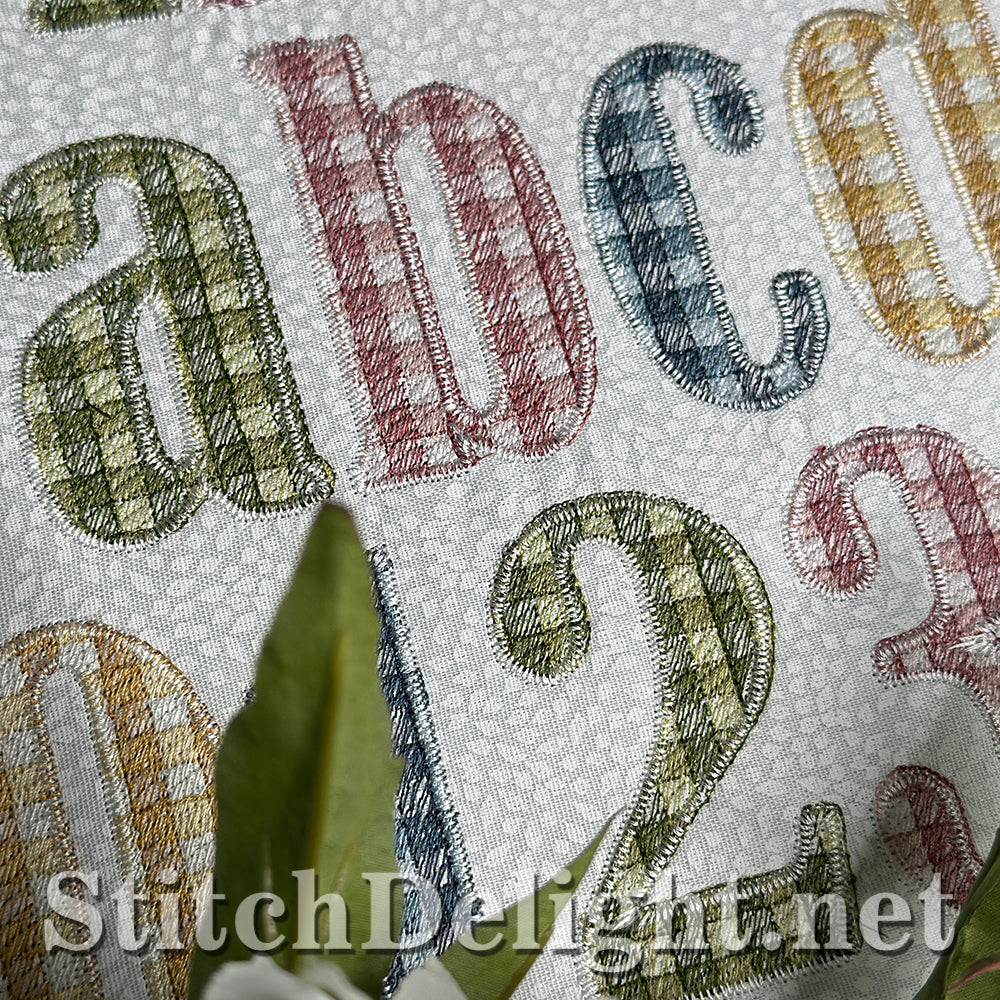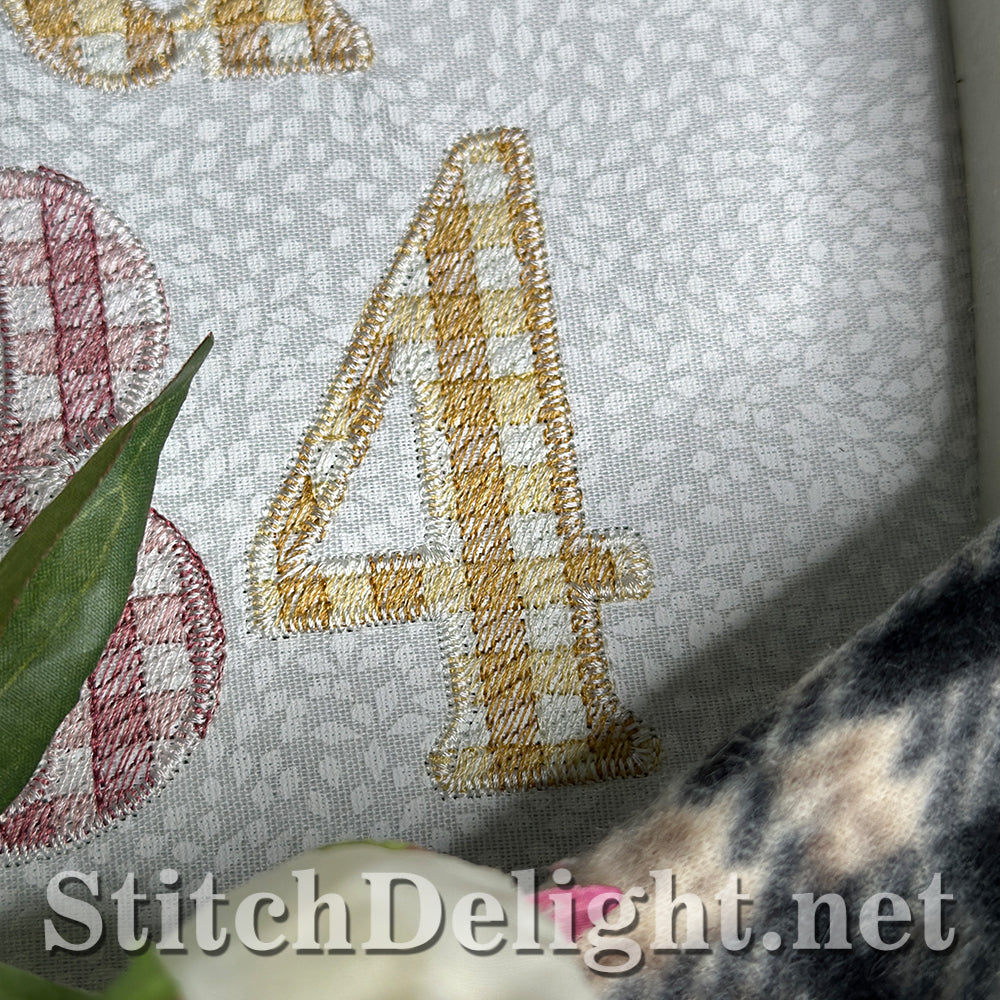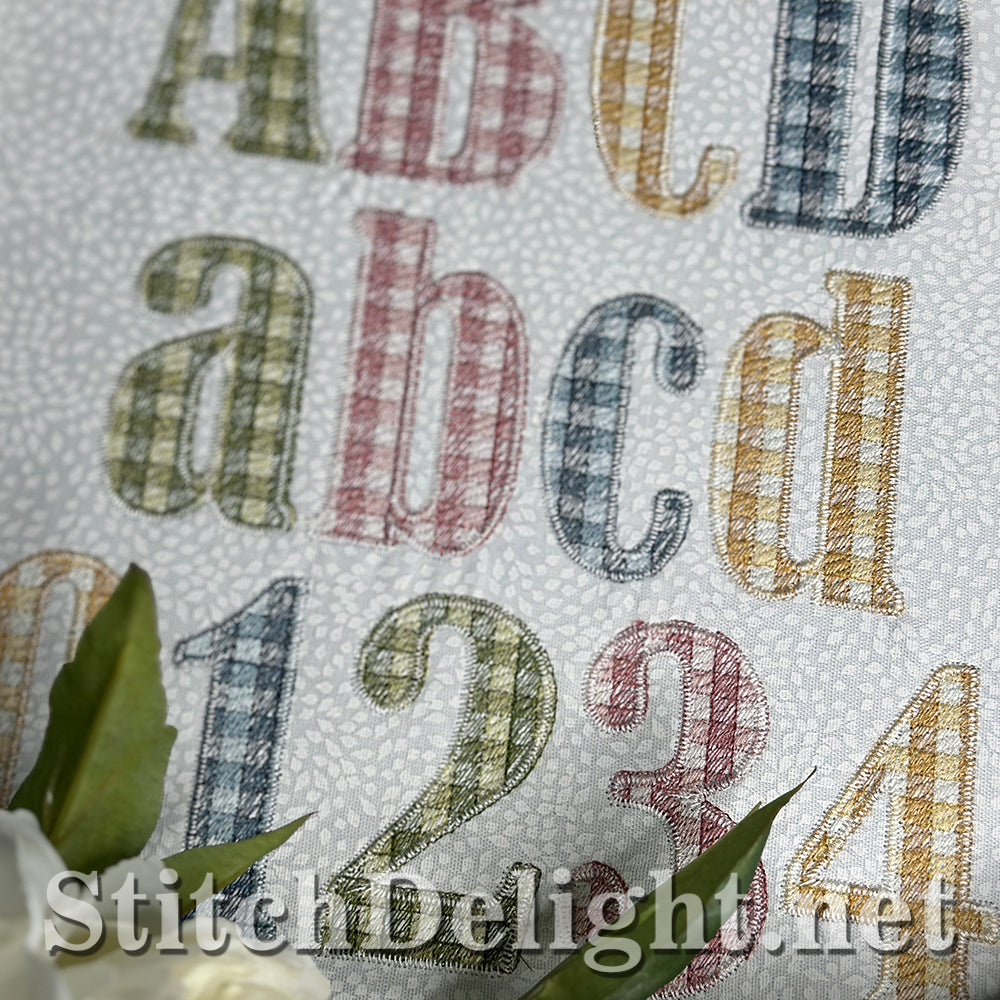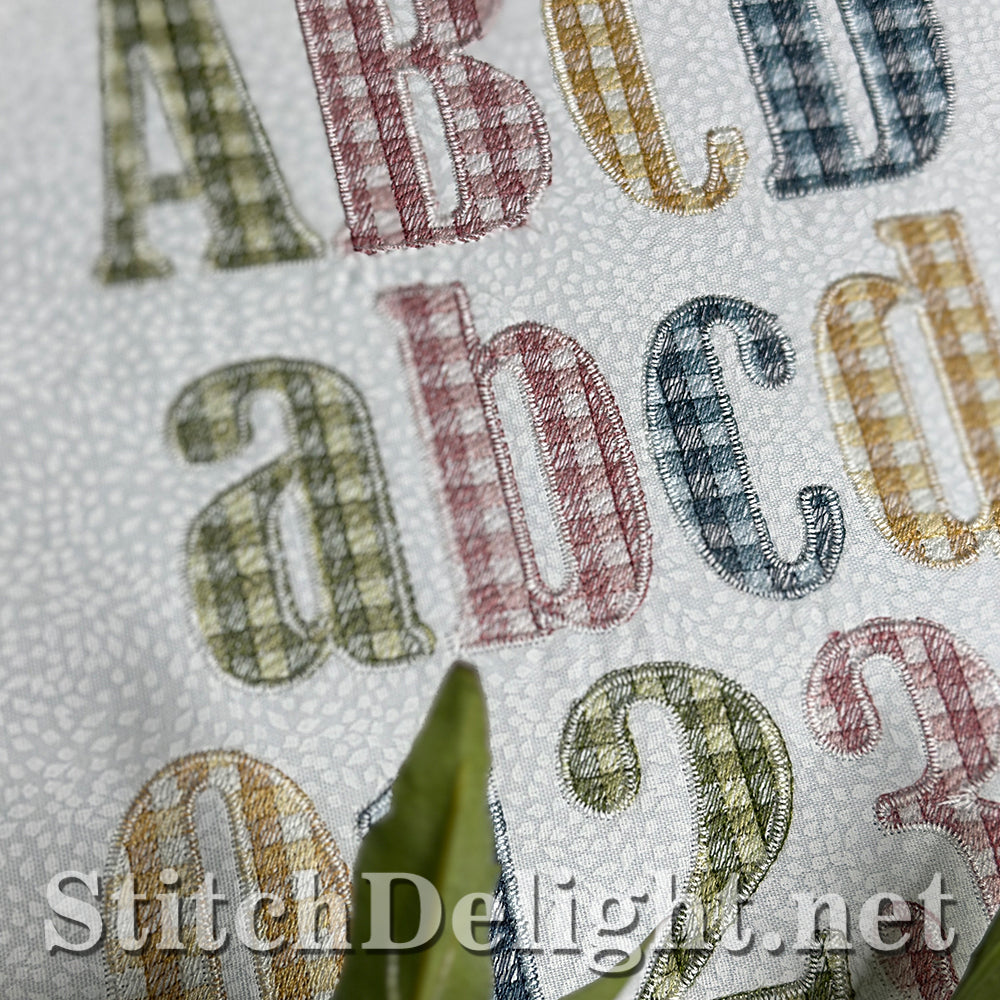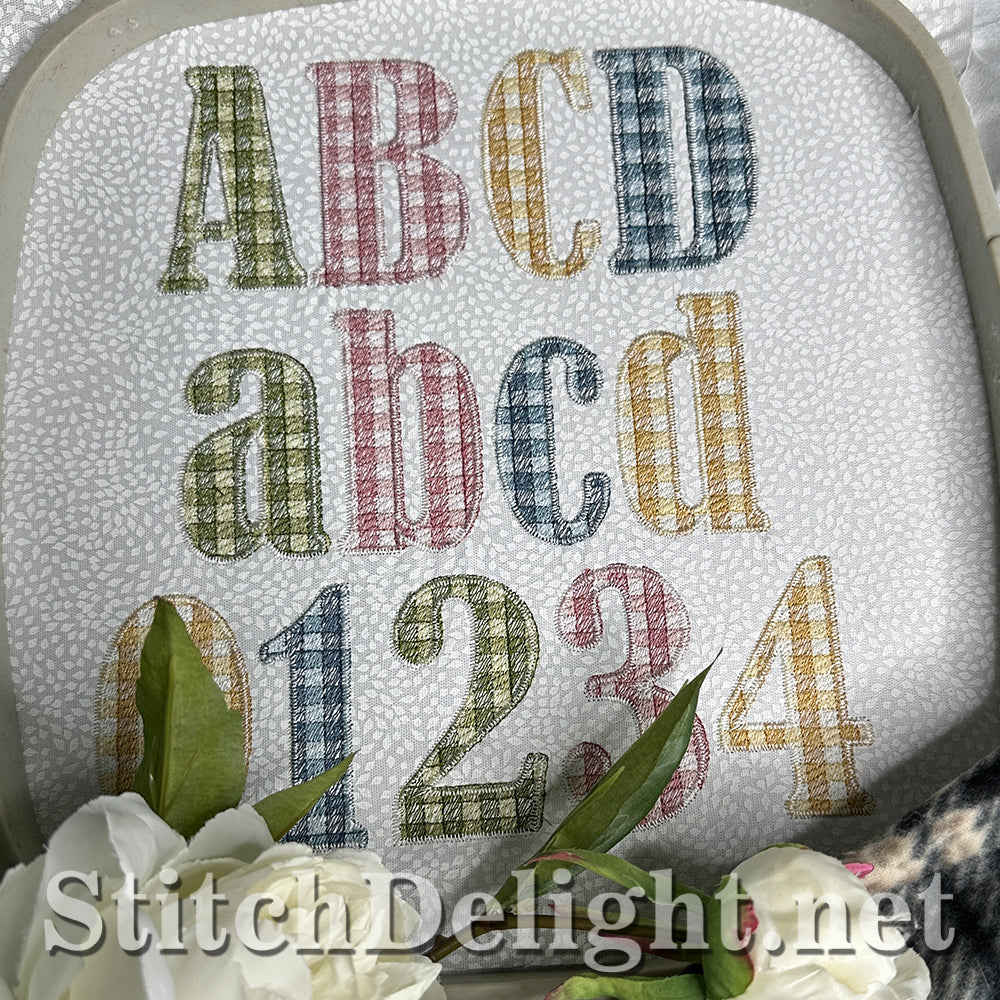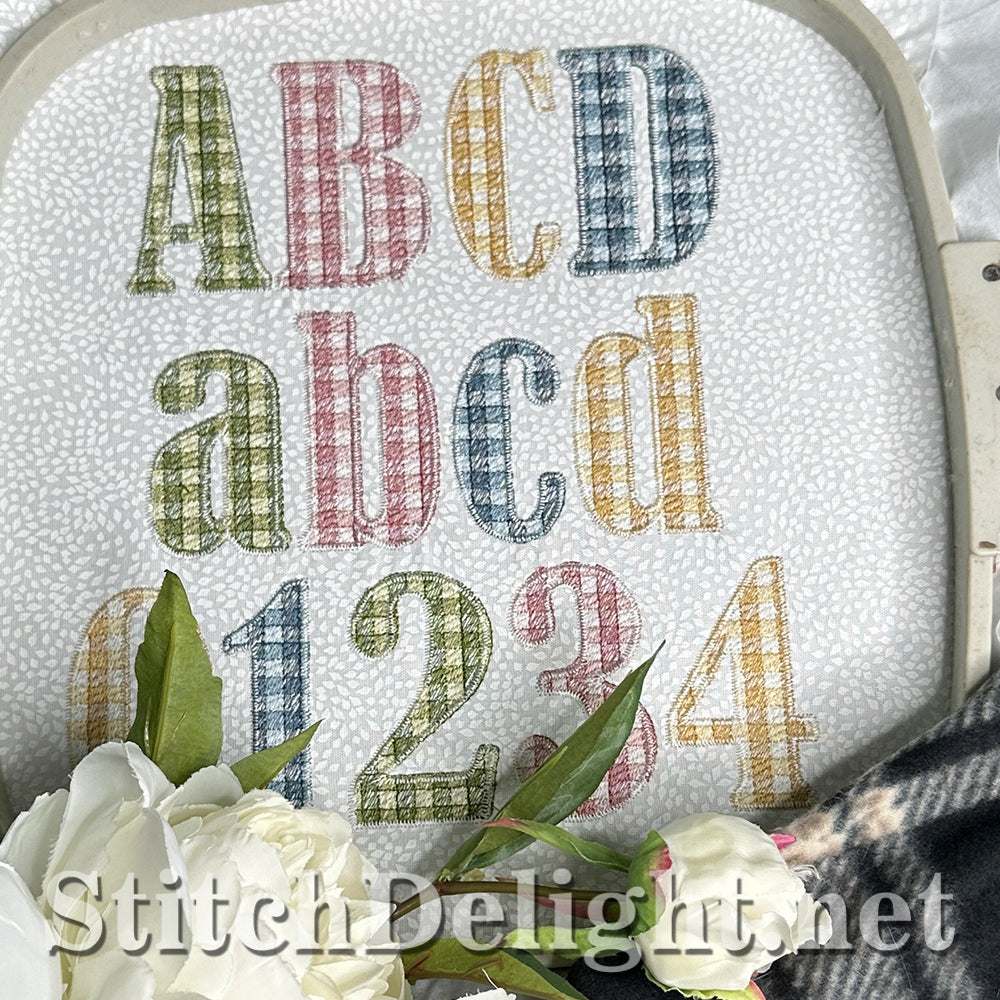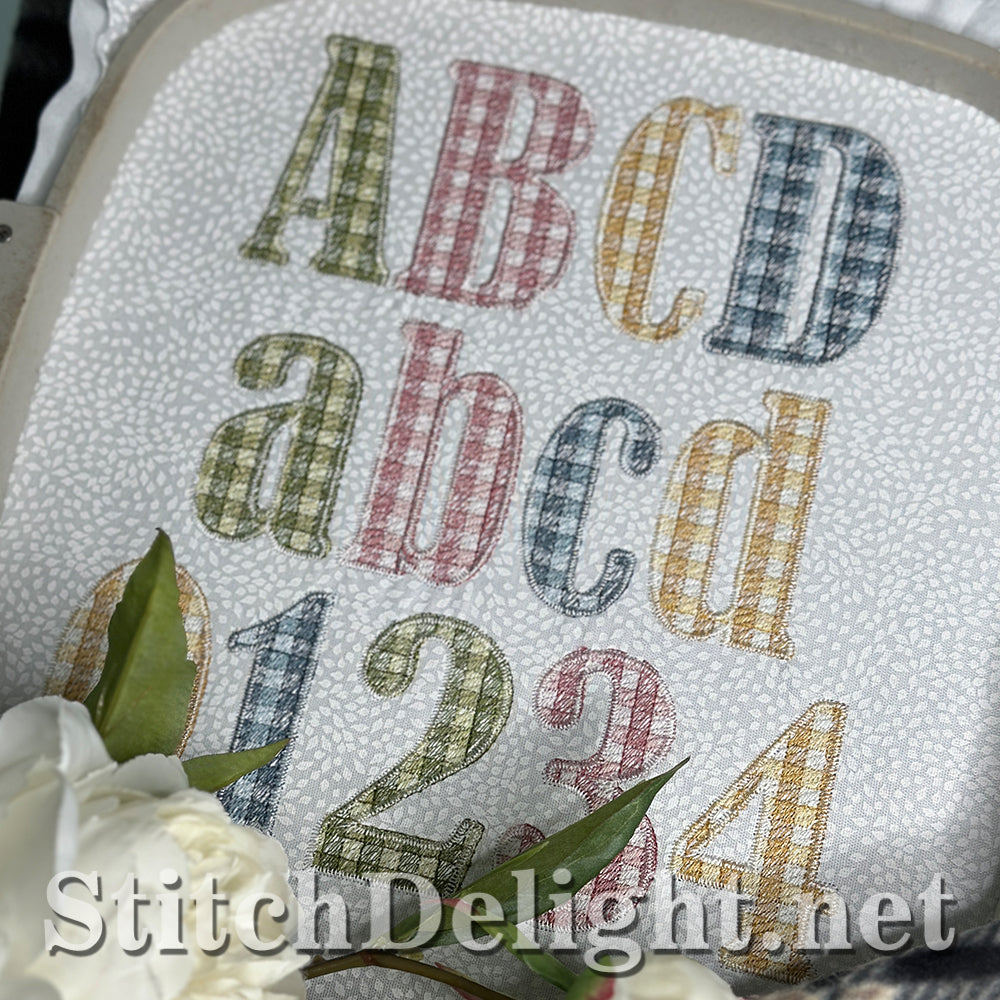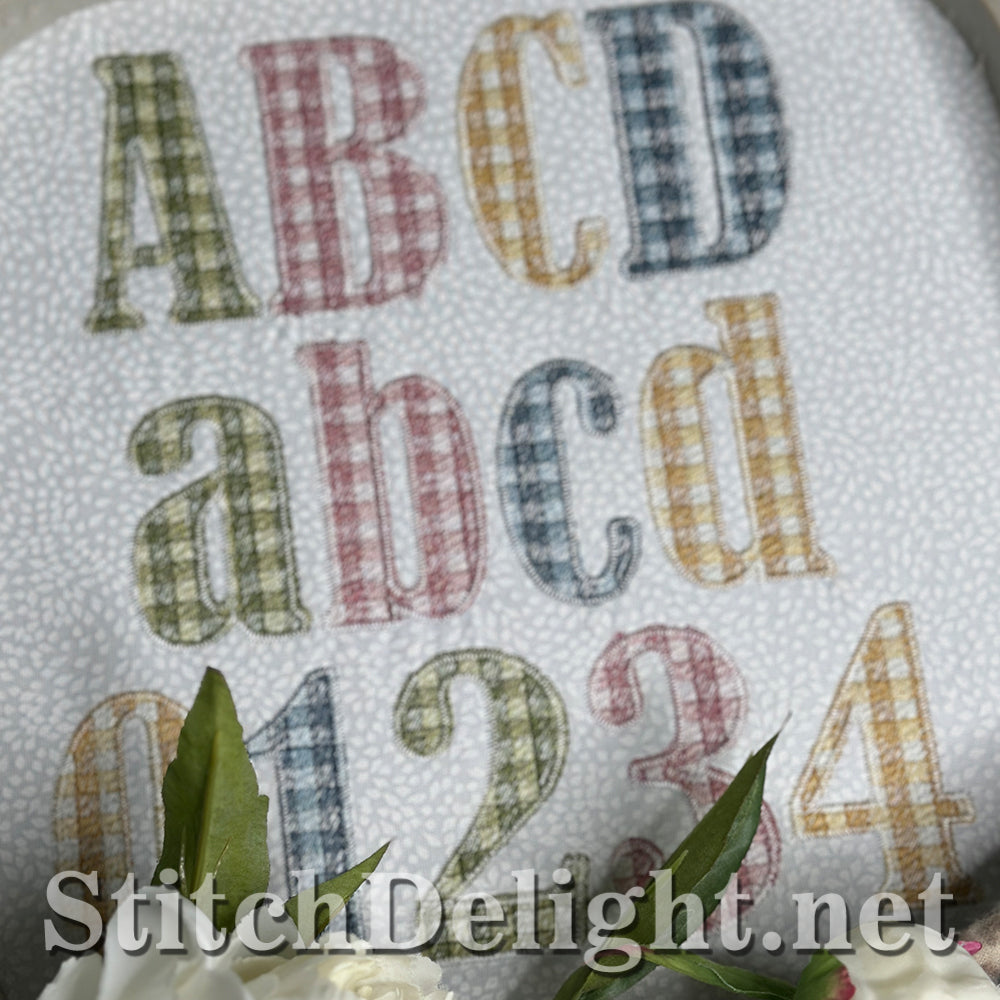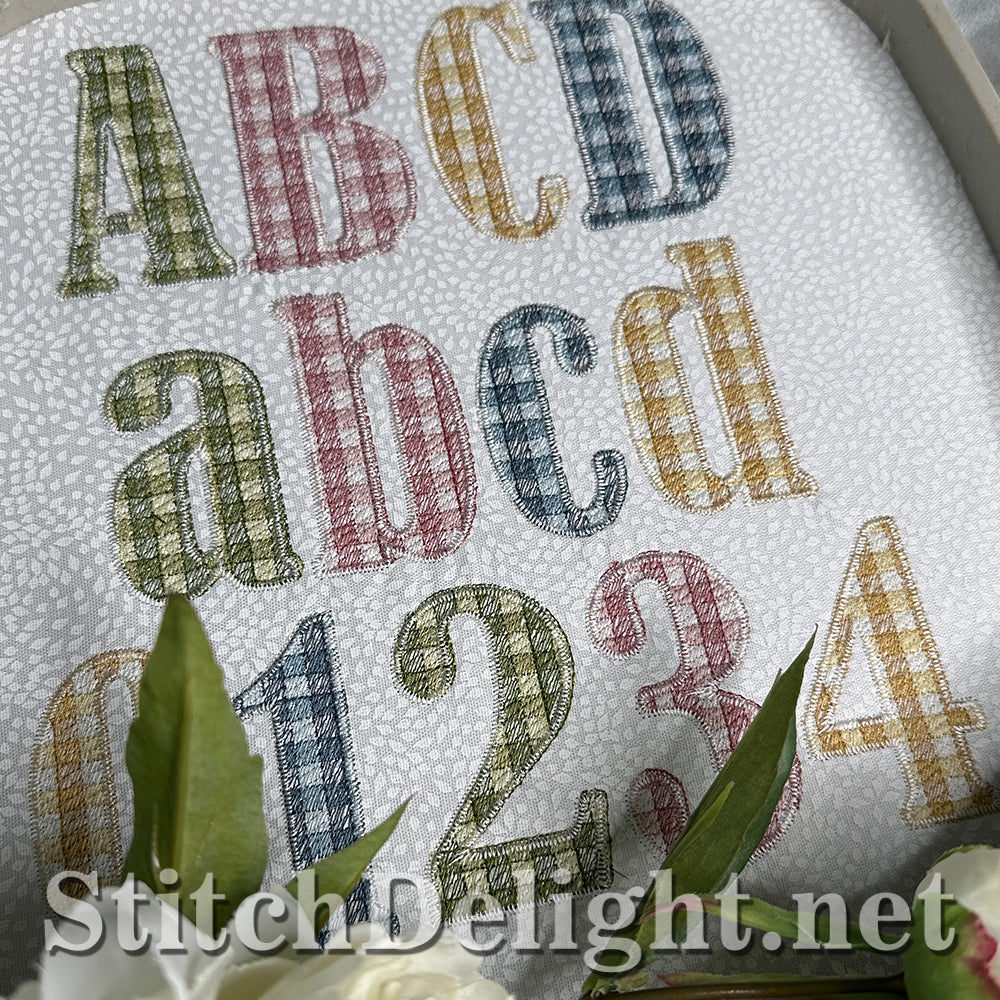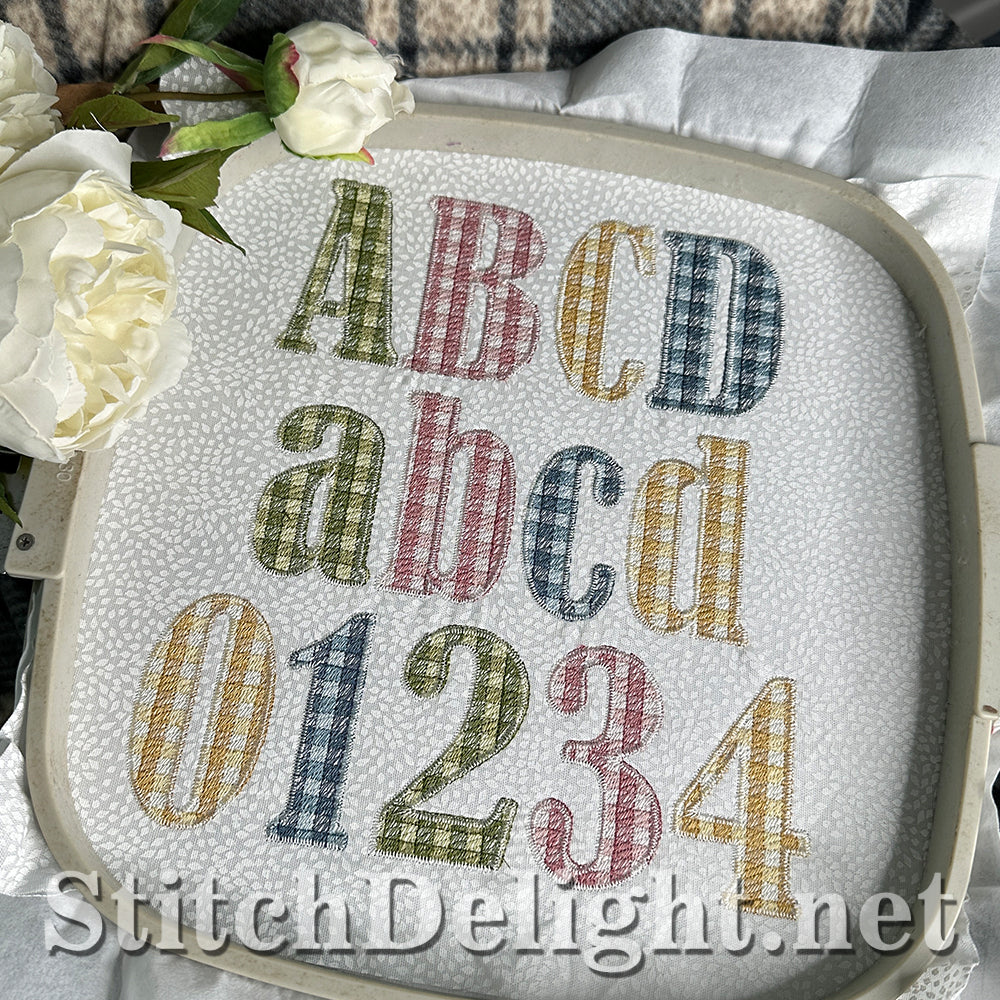
This gingham font, at a letter height of 2.85inch, is so easy to change colors, use 3 shades of a color, or experiment with 3 total different colors for a unique look. Included are the capital letters, small letters and numbers and a great match to the Country Teddy Bear font